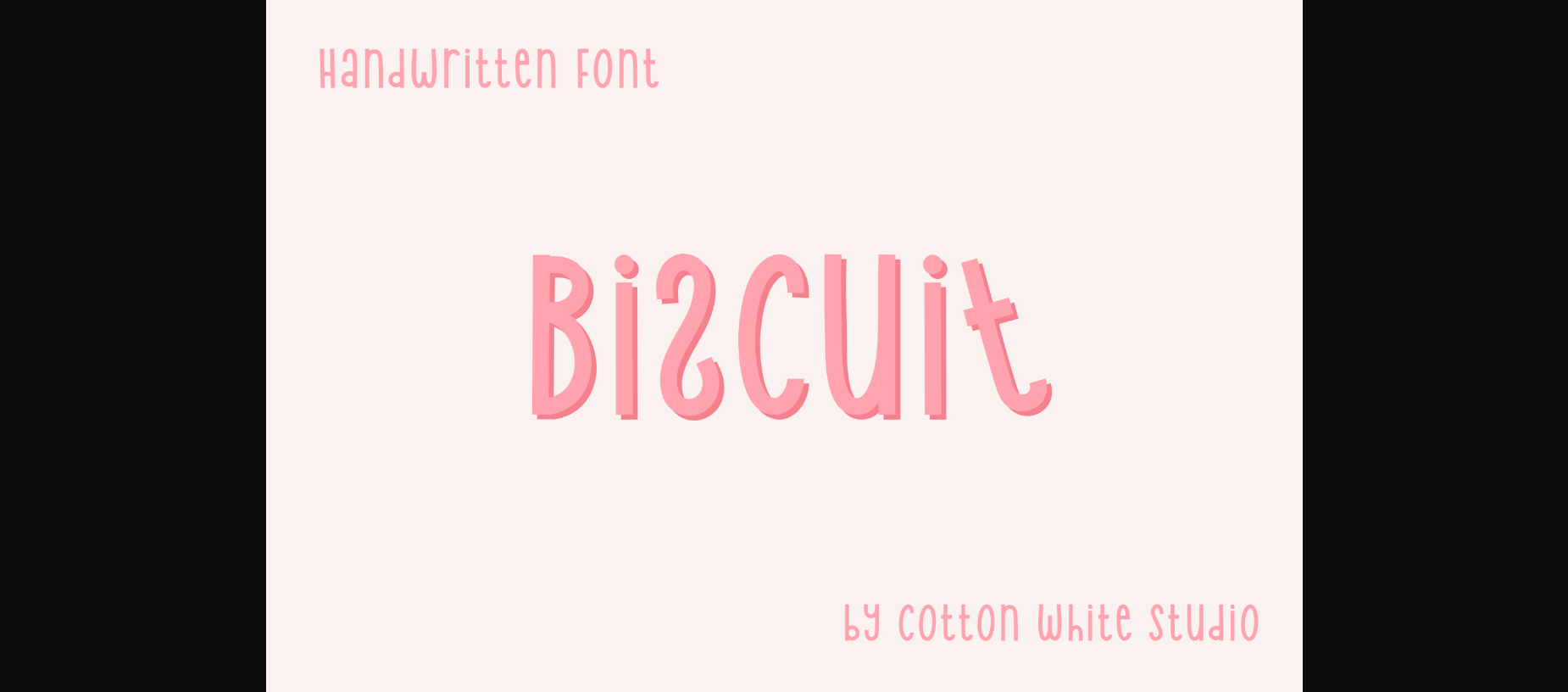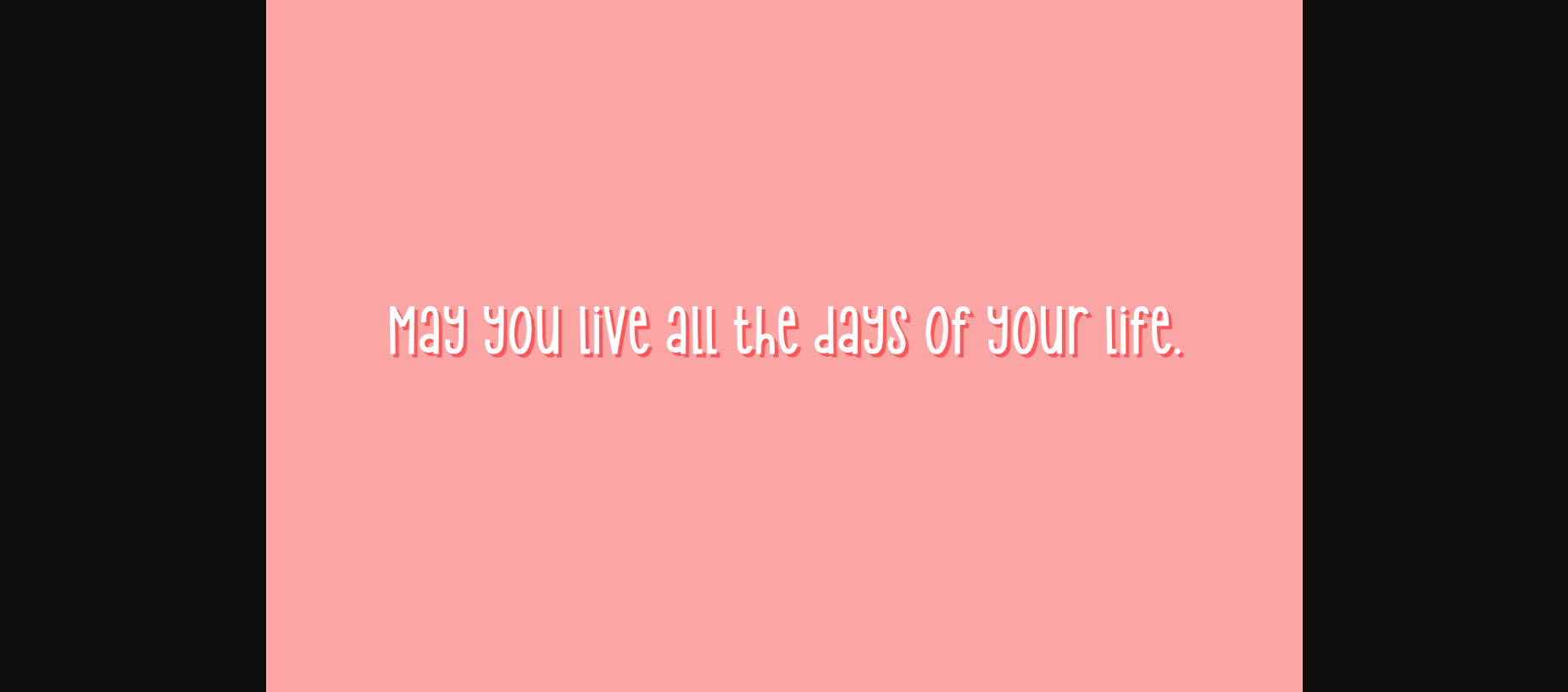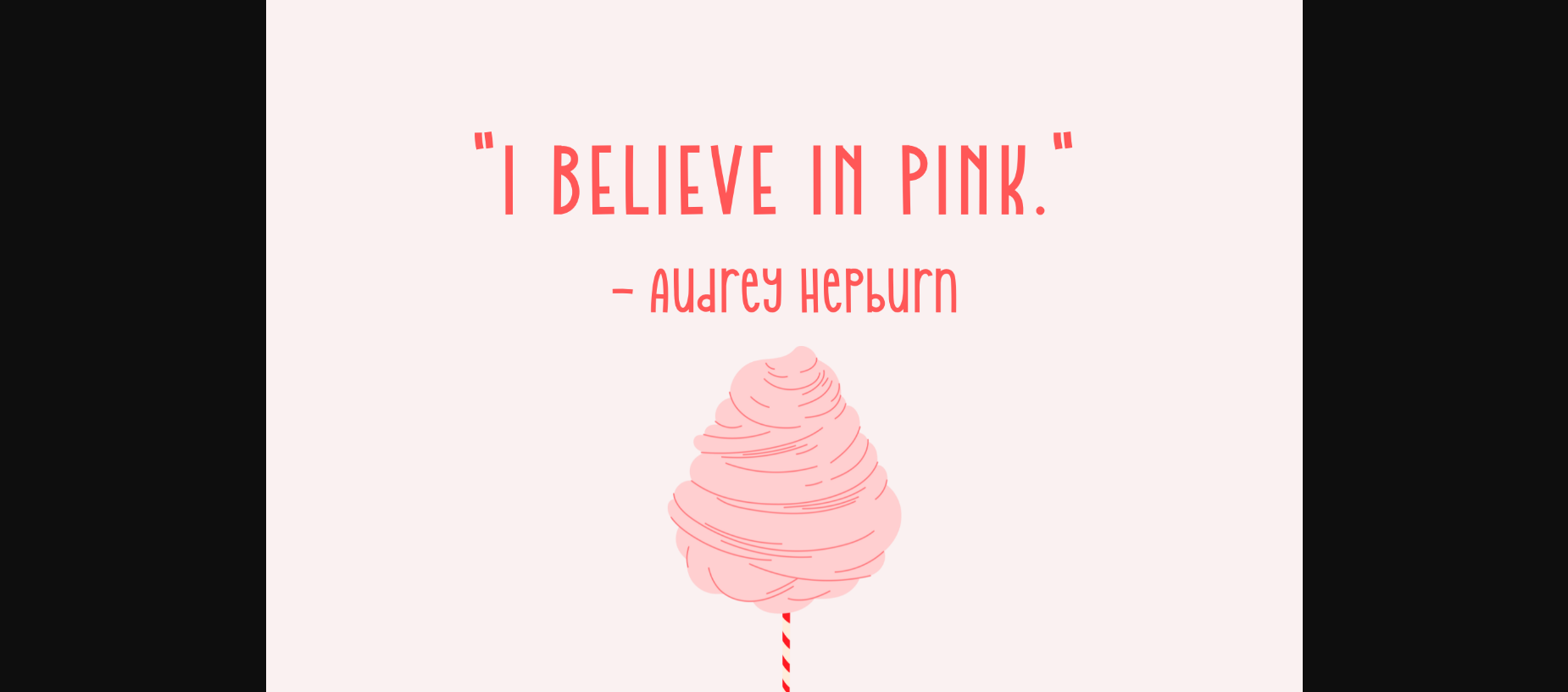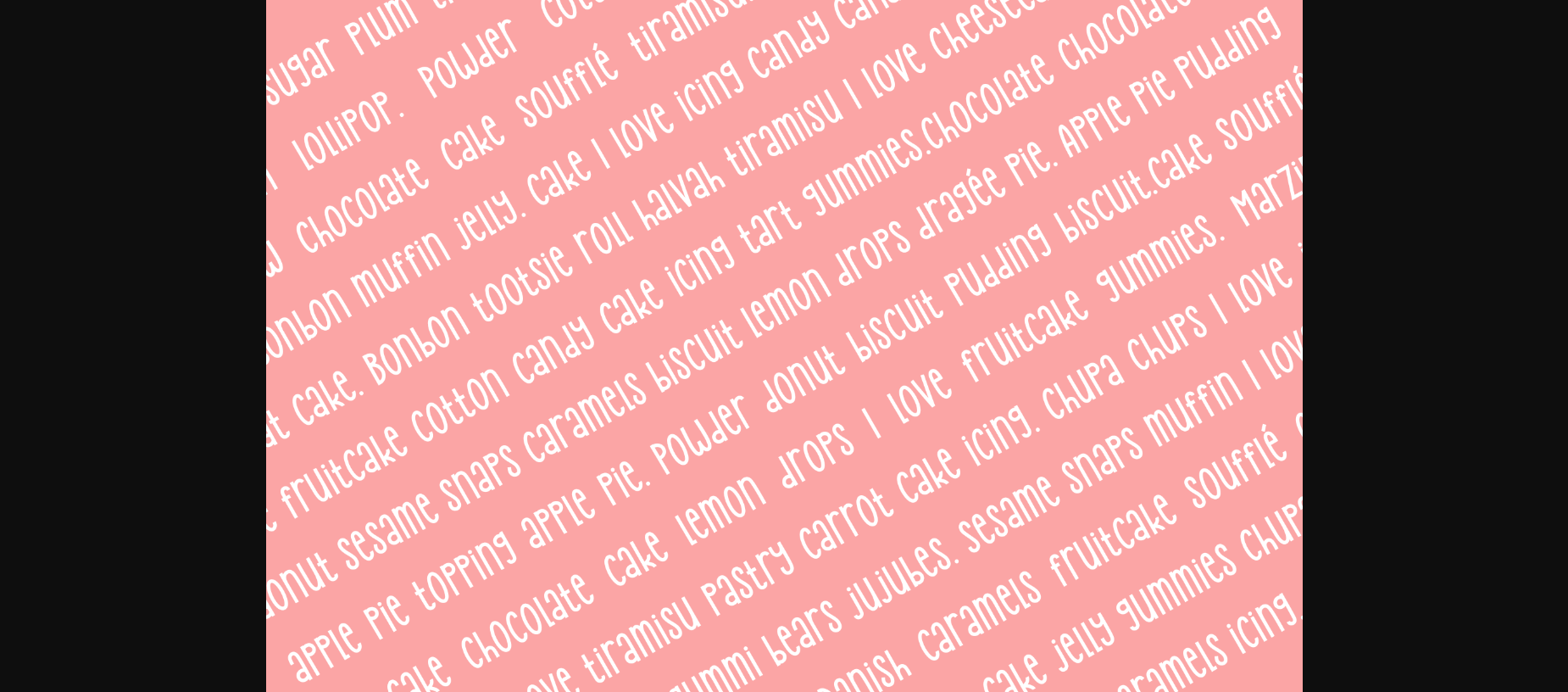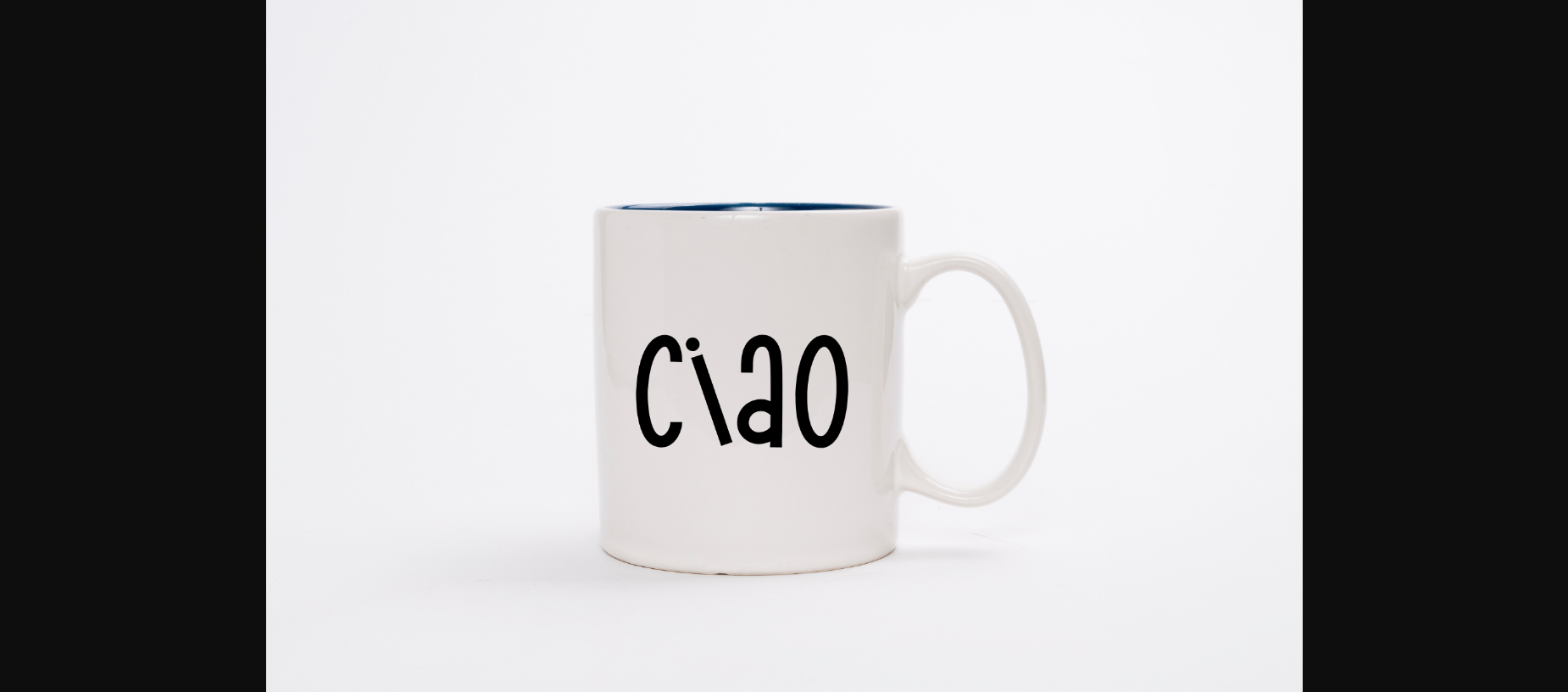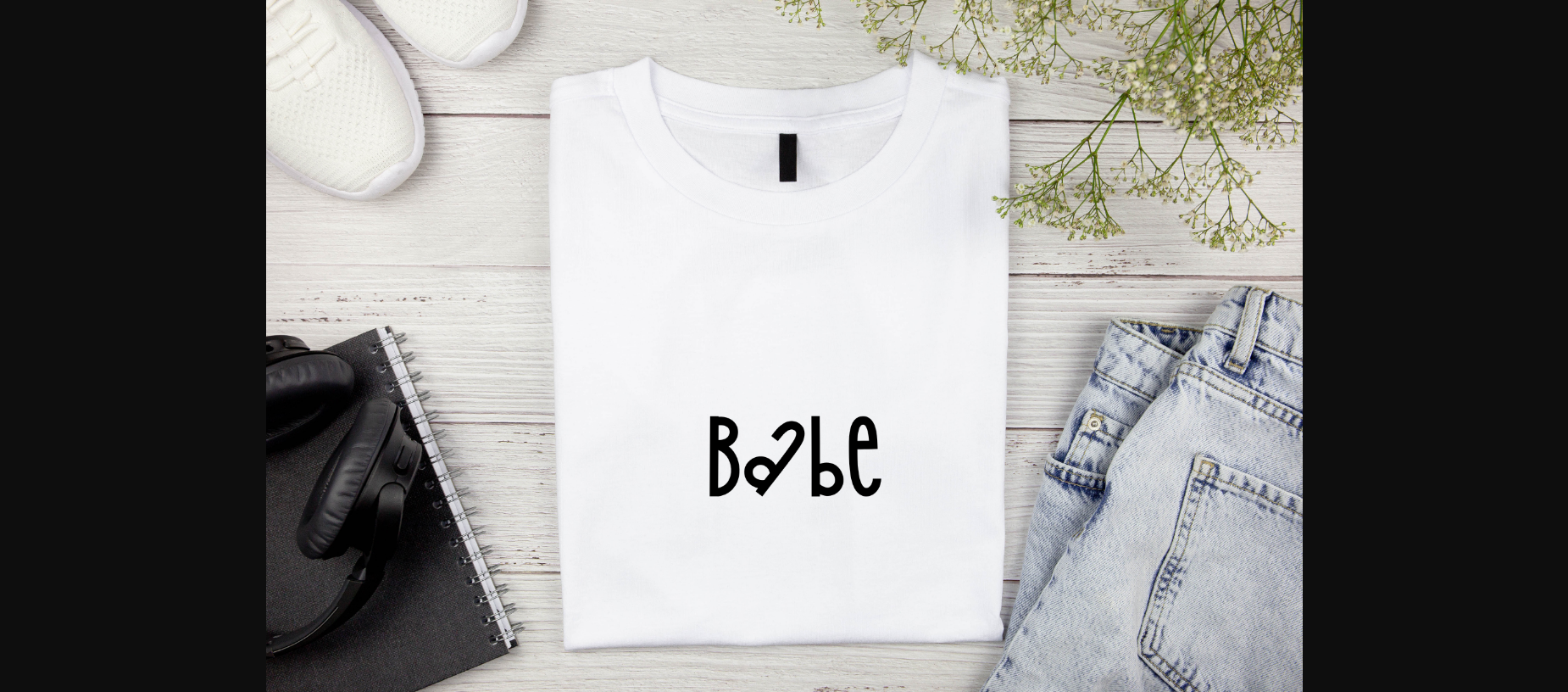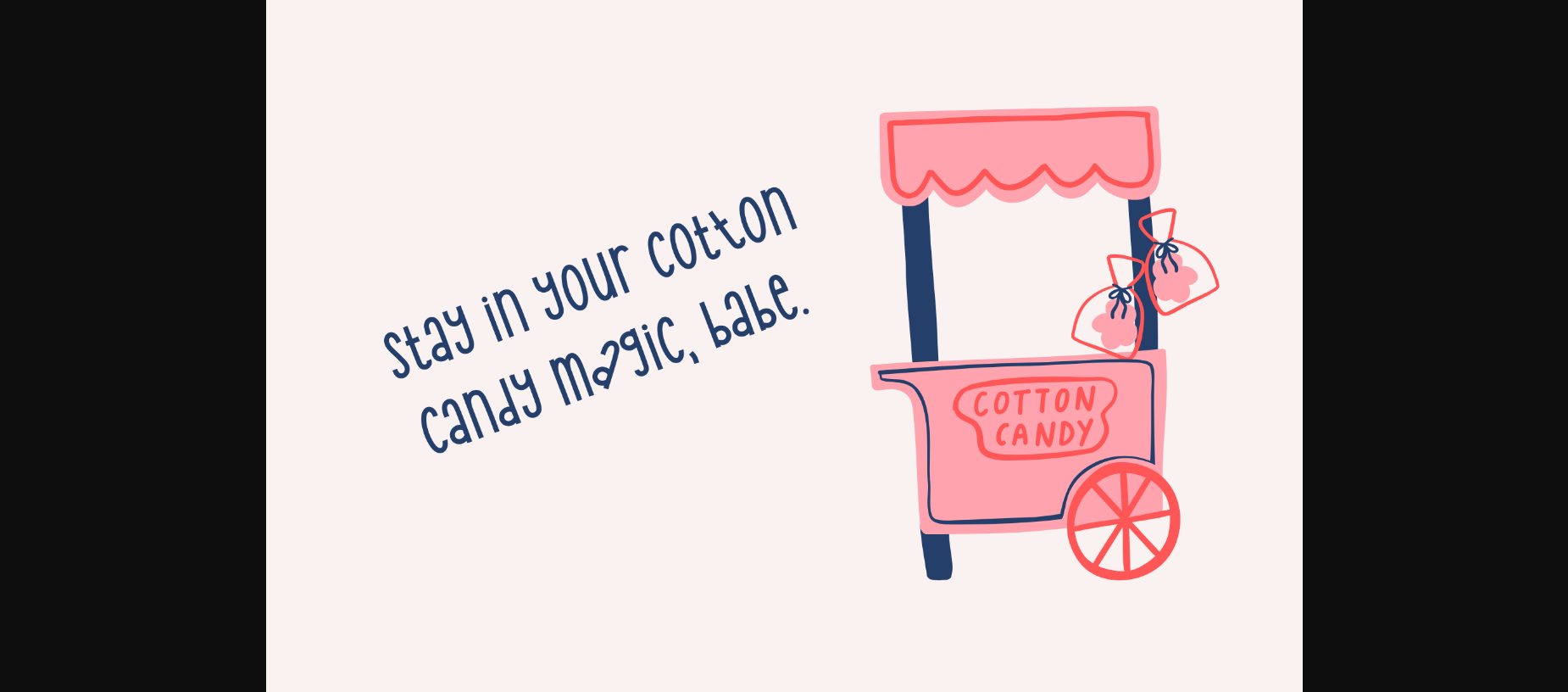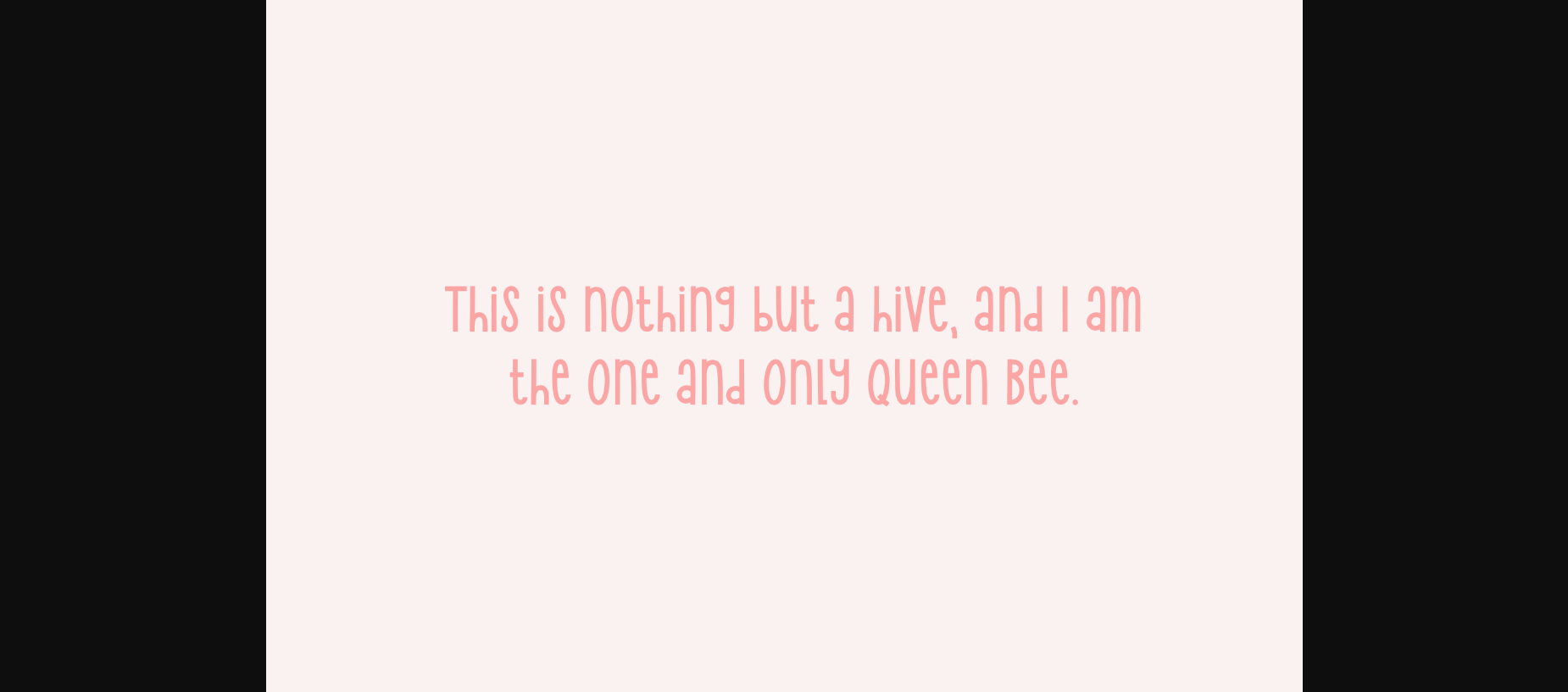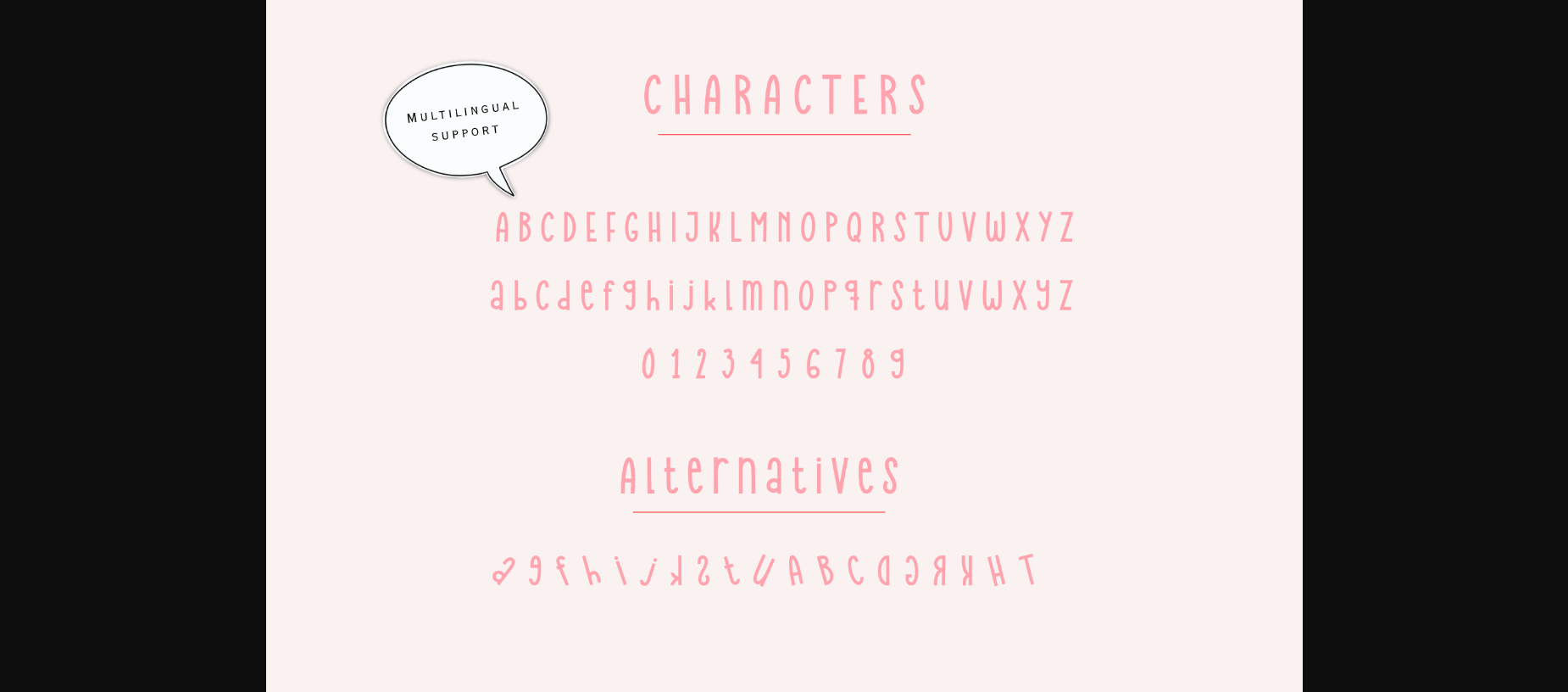
HomeSans Serif FontsBiscuit Font Sans Serif Fonts Biscuit Font FacebookXPinterestWhatsApp 1 of 11 ... Biscuit Font Poster 2... Biscuit Font Poster 3... Biscuit Font Poster 4... Biscuit Font Poster 5... Biscuit Font Poster 6... Biscuit Font Poster 7... Biscuit Font Poster 8... Biscuit Font Poster 9... Biscuit Font Poster 10... Biscuit Font Poster 11... About Biscuit Font Use the Biscuit font to create super cute logos, branding, notebooks, journals, labels, stickers, blogs, quotes, greeting cards, tea towels, apparel, pillows, mugs, toys, posters, baby clothing, picture books and so much more. DOWNLOAD NOW People also explored American Wonders Font Love Nature Font Summerday Bold Font Sweet Pancake Font Billiboldy Font Elisabeth Font Little Billy Font Letter Marker Font ZP Oh, Darling Font 279 0 TagsBiscuitBiscuit Font Previous articleMoulage FontNext articleUnderbold Font LEAVE A REPLY Cancel reply Comment: Please enter your comment! Name:* Please enter your name here Email:* You have entered an incorrect email address! Please enter your email address here Website: Save my name, email, and website in this browser for the next time I comment. Personal Use Free Love Ya Personal Use Free Read more about this font Sileighty Personal Use Free Read more about this font Hello December Personal Use Free Read more about this font Soria Personal Use Free Read more about this font BLOG 5 Fonts That Will Dominate Design Trends in 2026 5 Fonts for 2026 That Will Dominate Design Trends Typography plays a critical role in visual communication, and as we look ahead to 2026, it’s... Top 10 Handwritten Fonts That Elevate Your Designs How to Install and Use Fonts on Windows, macOS, and Web Projects Using Fonts in Digital Marketing: Tips to Strengthen Your Brand Identity